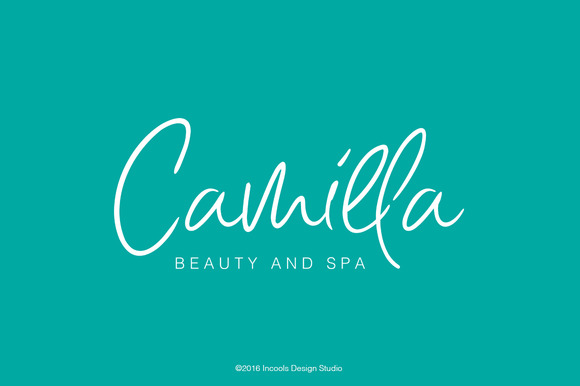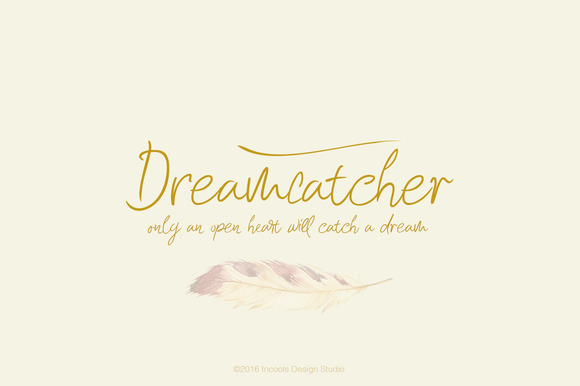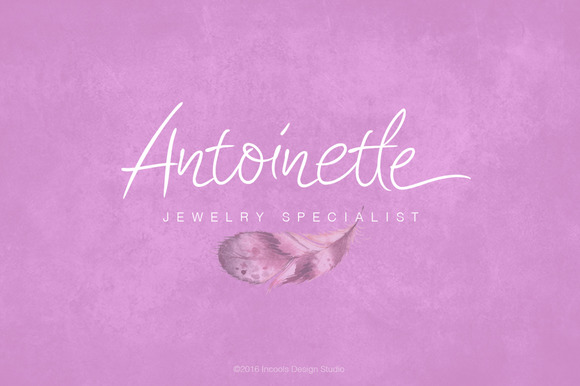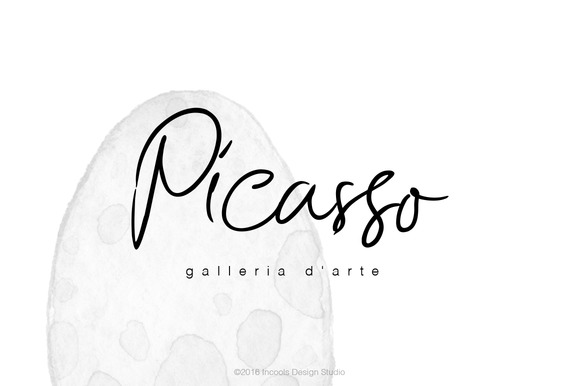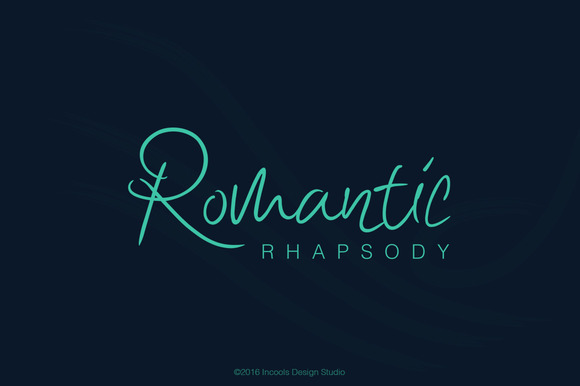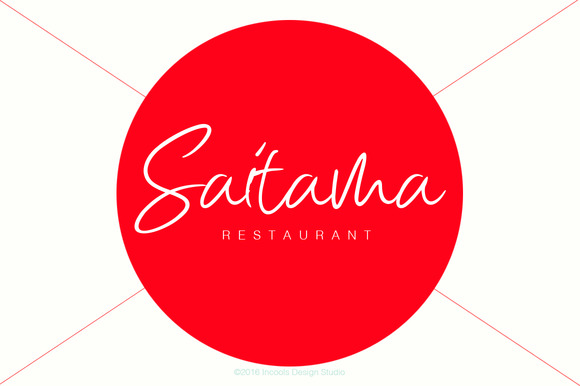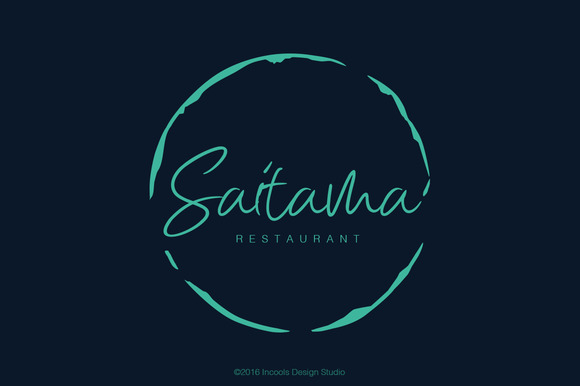
Ipanema Font
About Ipanema Font
Ipanema is a summer font created by the Incools Design Studio.
The Ipanema font draws it inspiration from late-night bonfire meetings on the beach. A careless free world where you feel happy and where only today counts.